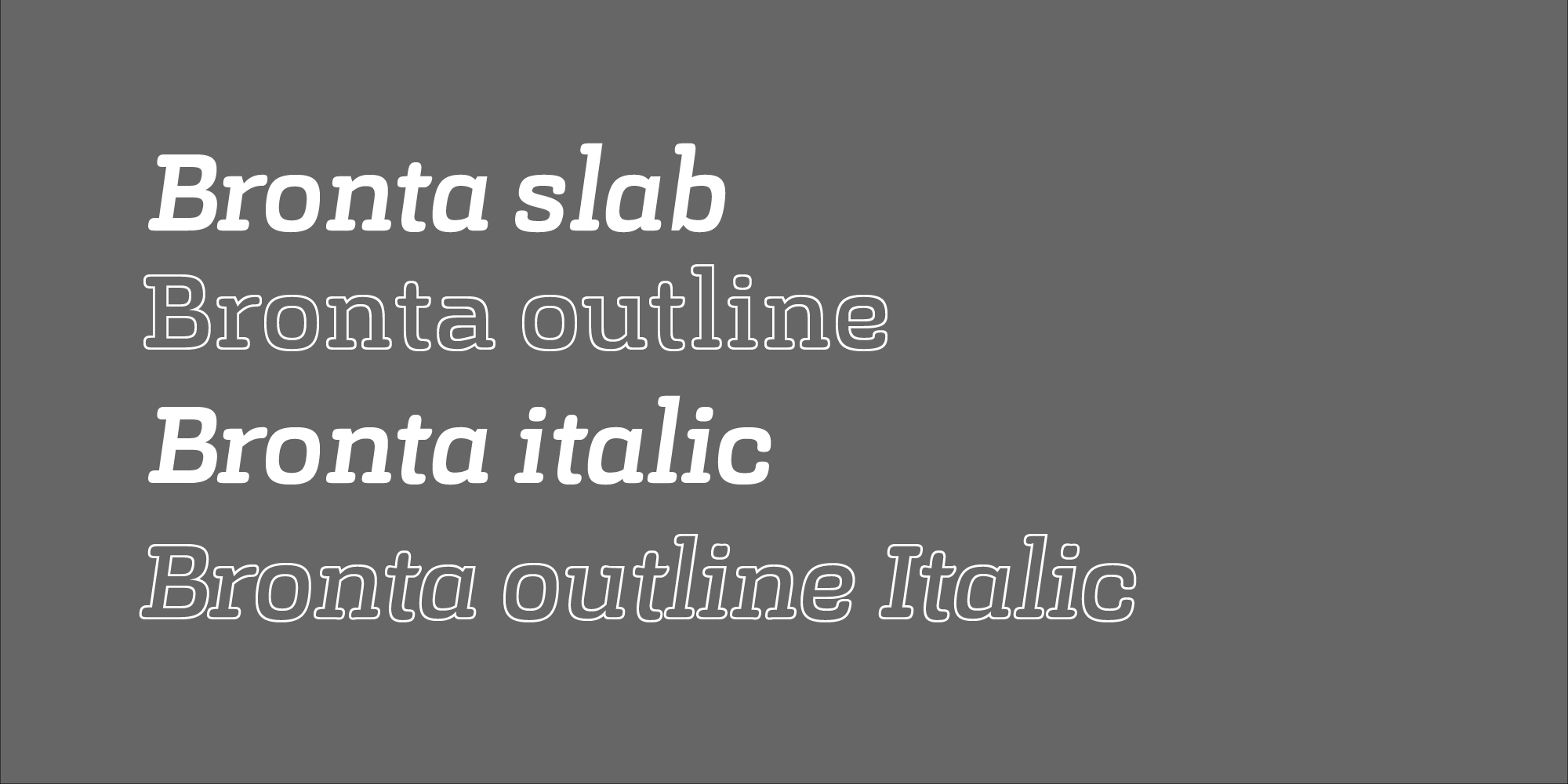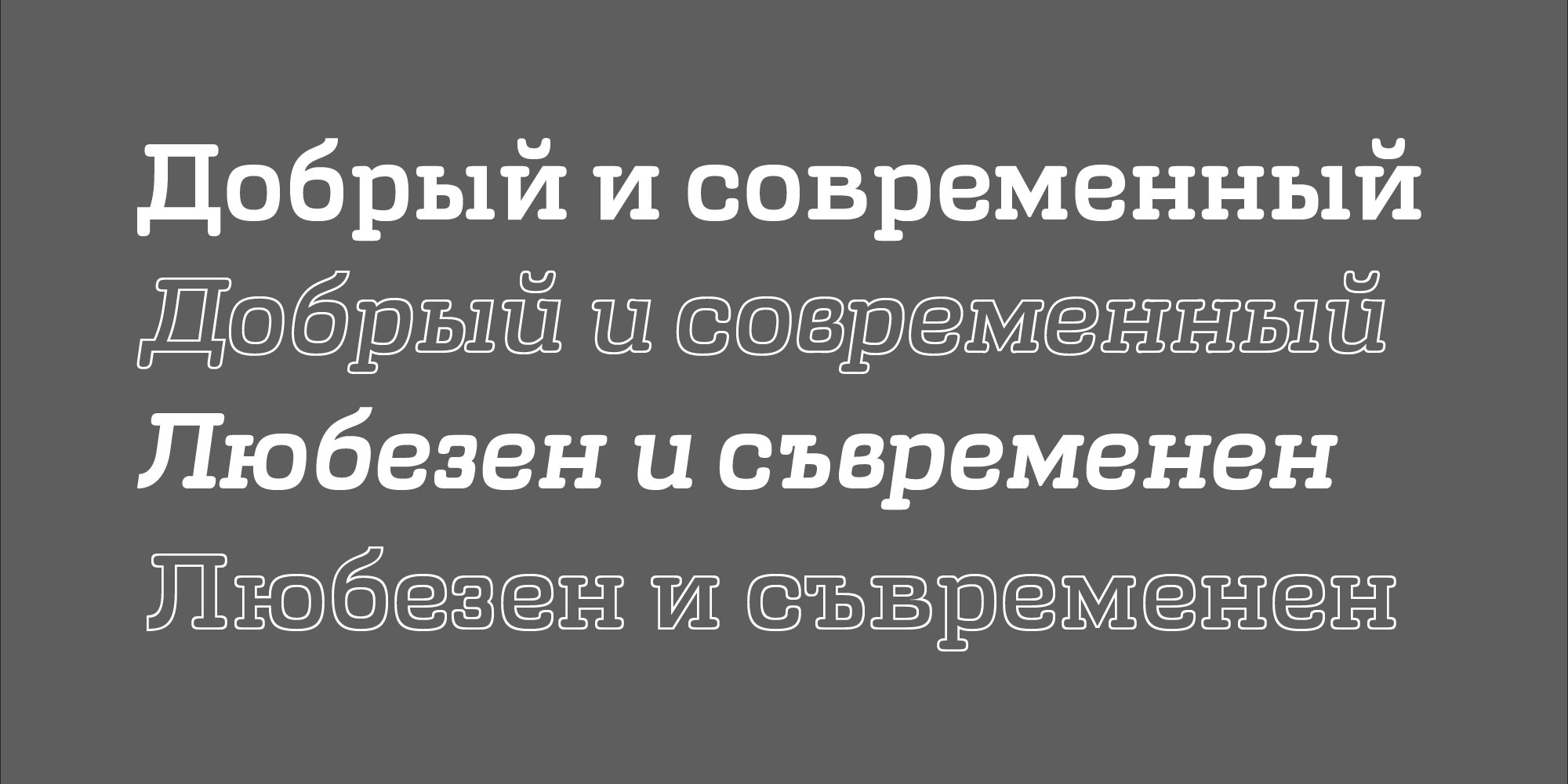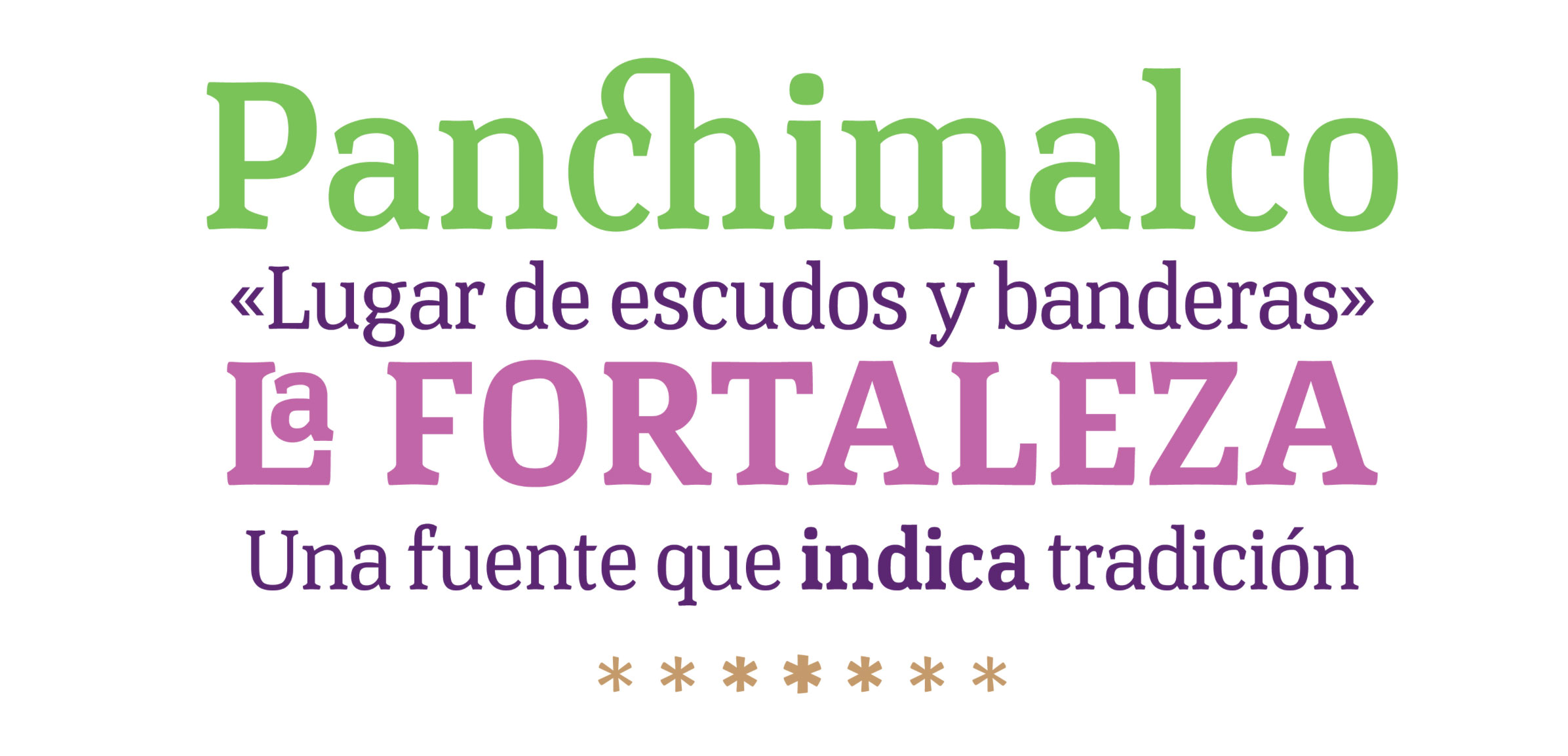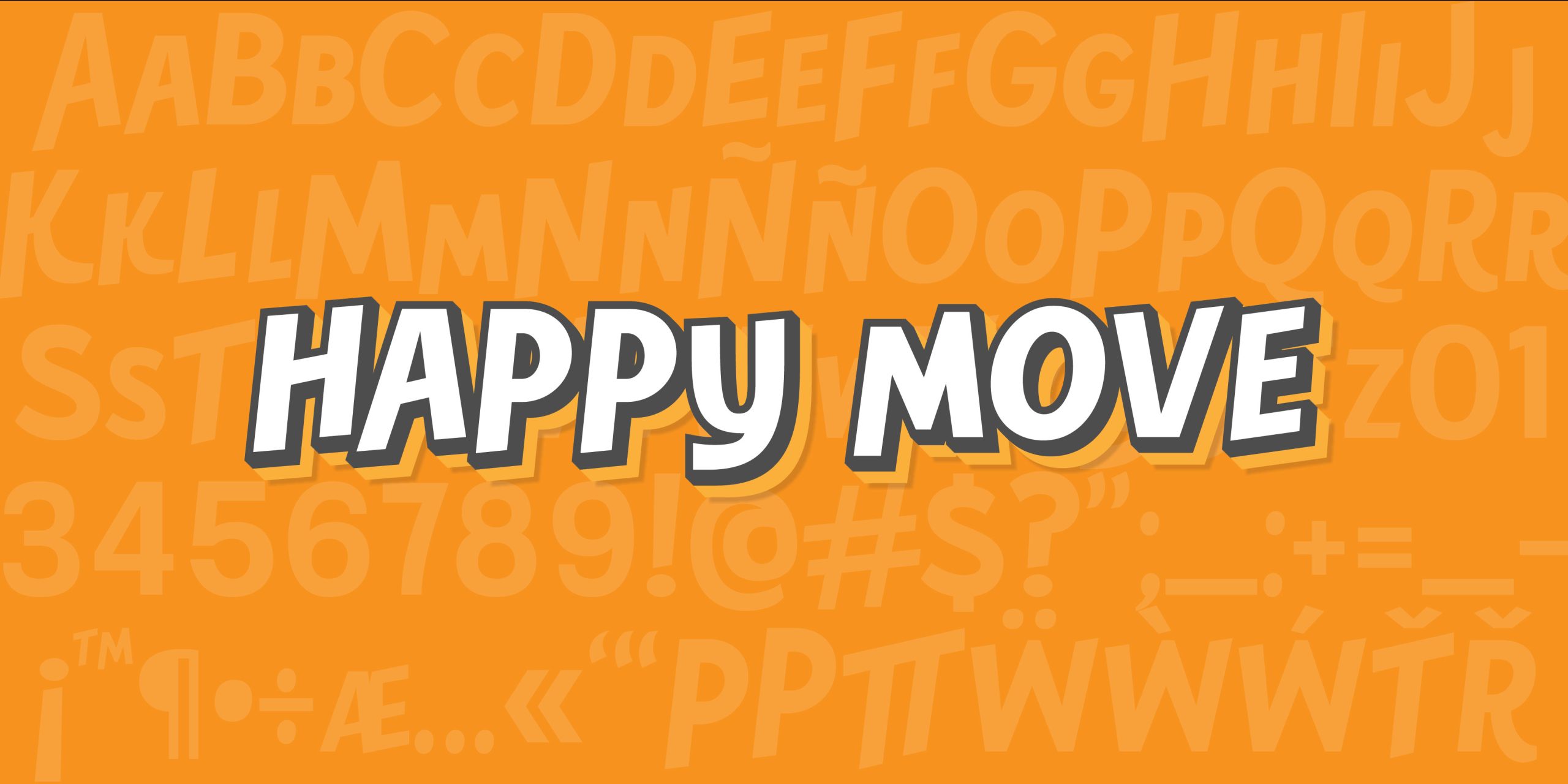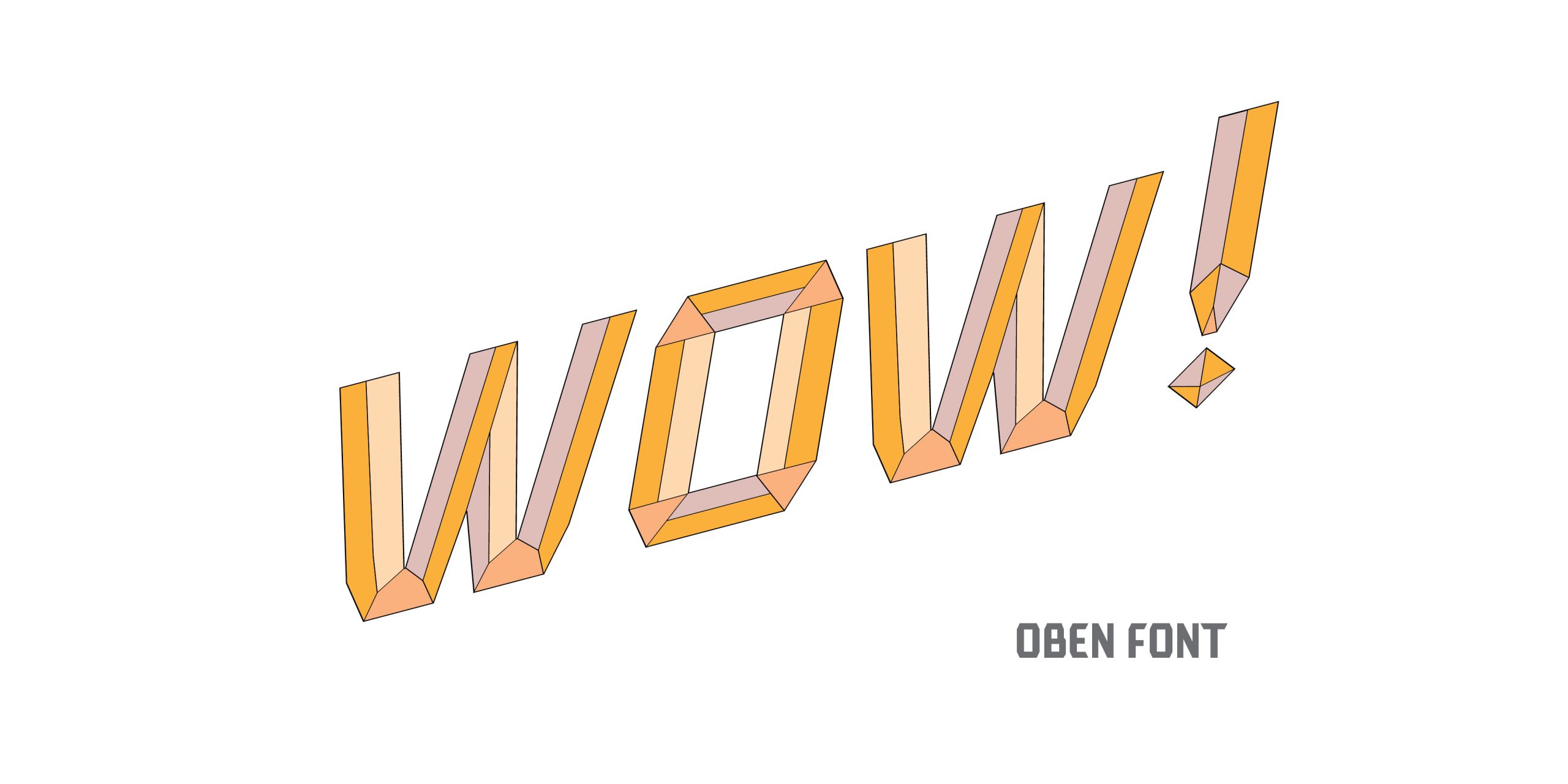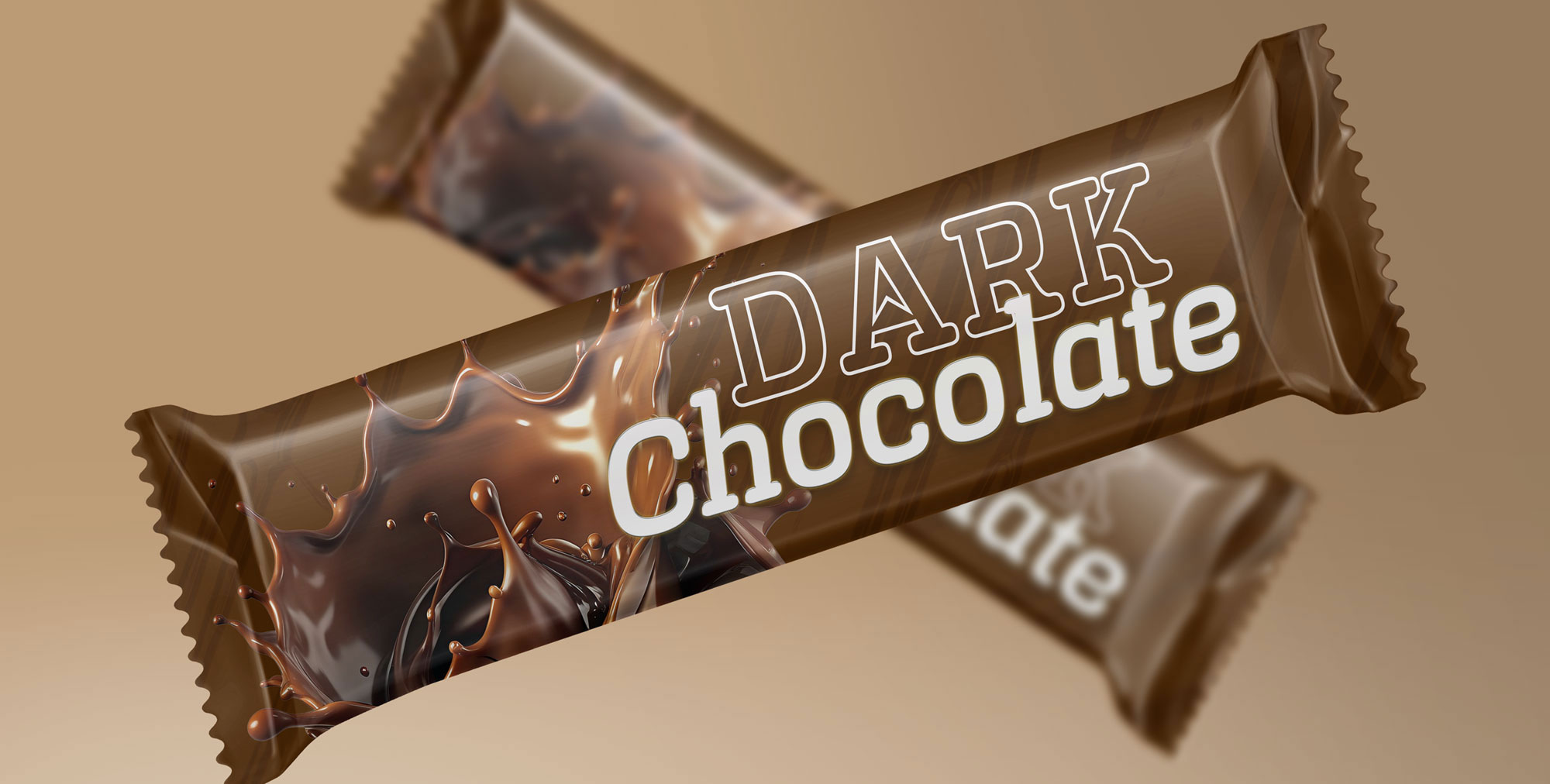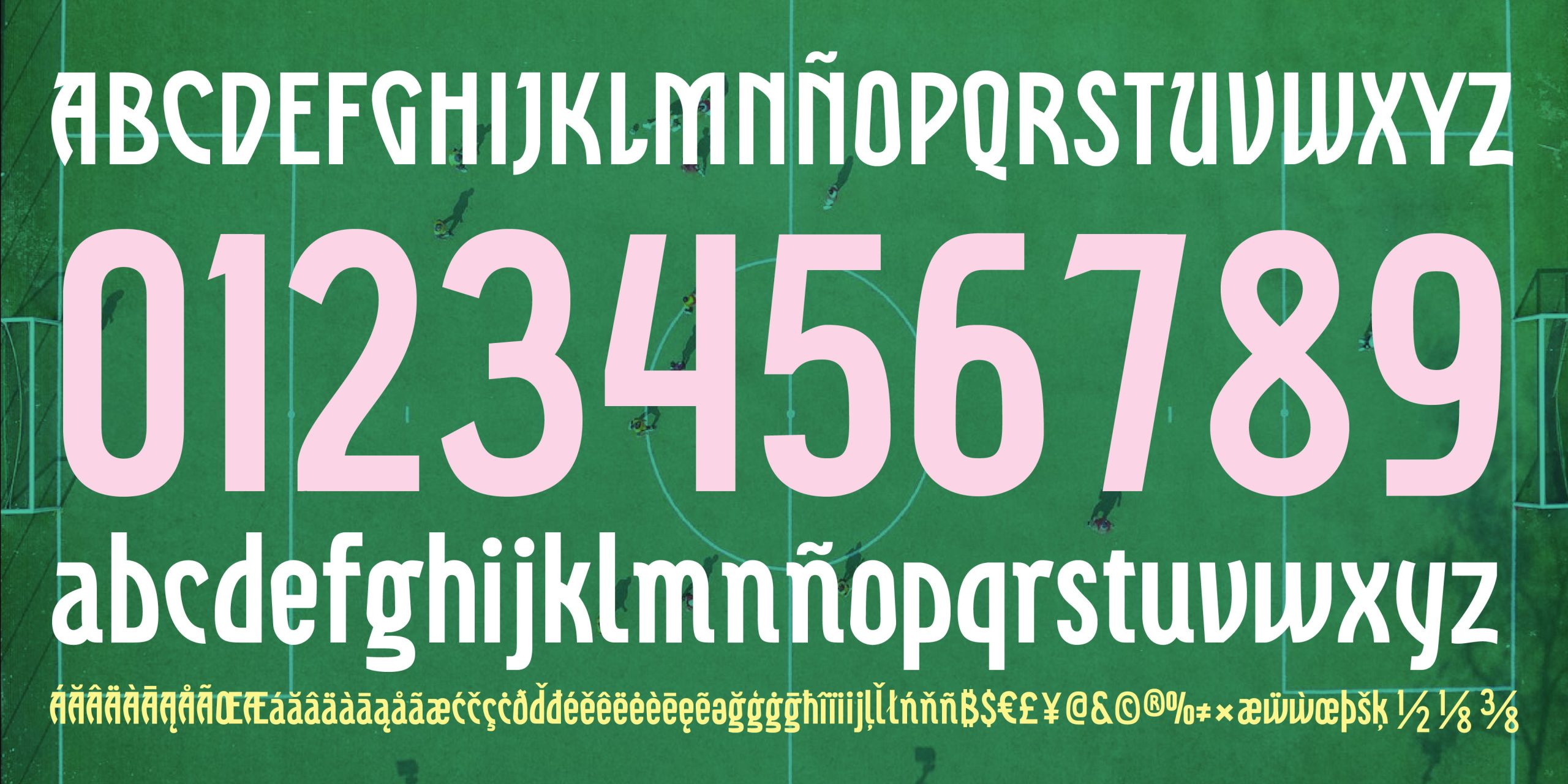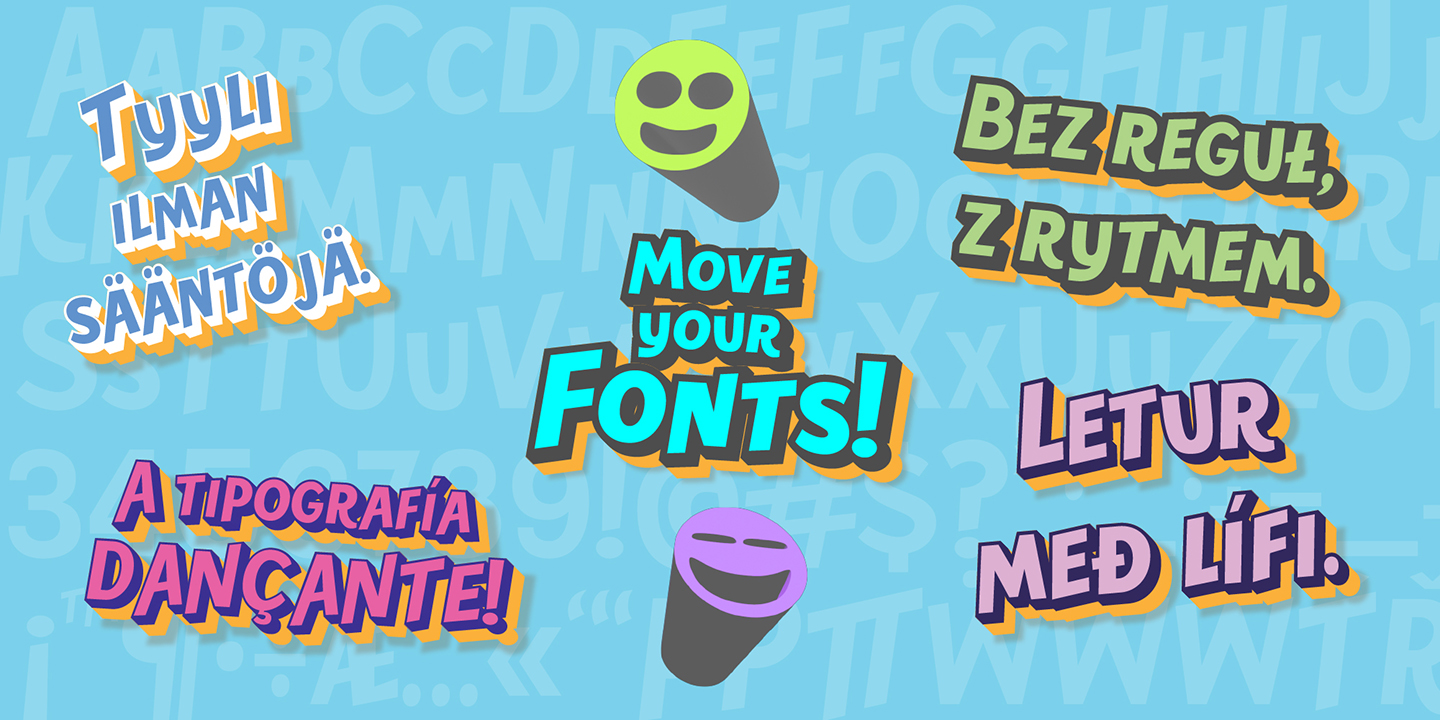
Digital 404
Digital404 is a pixel-style typeface inspired by retro computing and glitch aesthetics, perfect for indie games, cyberpunk branding, and futuristic digital design.
Bronta
Bronta is a slab serif typeface family with rounded serifs. It includes Regular, Italic, Outline, and Outline Italic styles, with support for both Latin and Cyrillic alphabets.
Happy Move
HappyMove is a dynamic sans serif display font full of rhythm and personality. Perfect for bold headlines, playful branding, and expressive layouts.
In Progess…
Fonts in progress, coming soon in a variety of weights and styles.
Oben Font
CTF GallartDeco
CTF Pancho Font